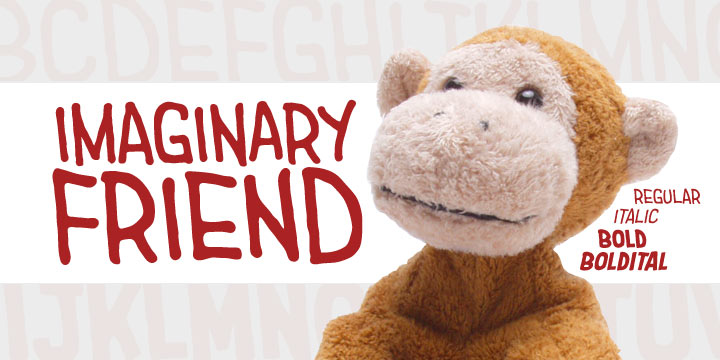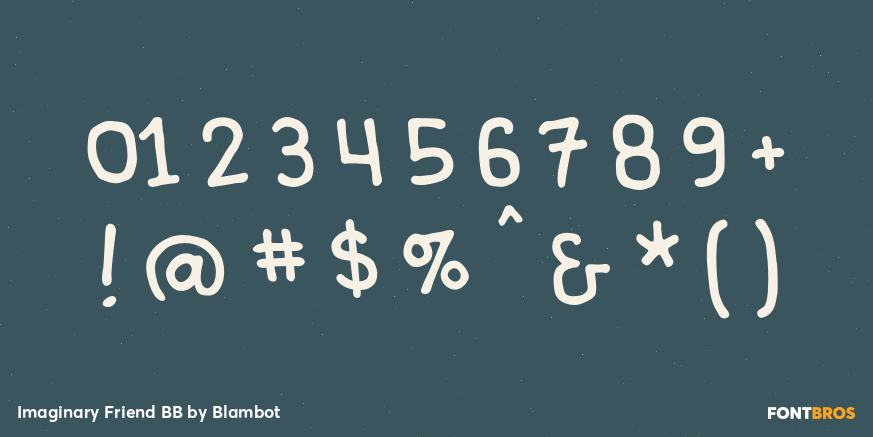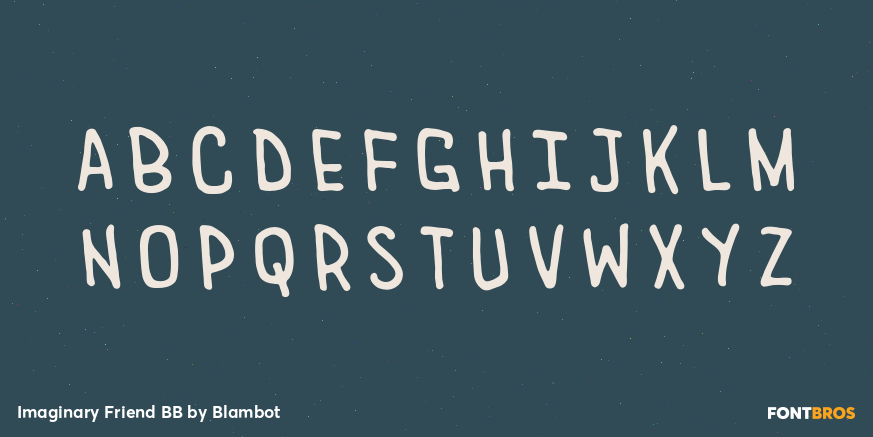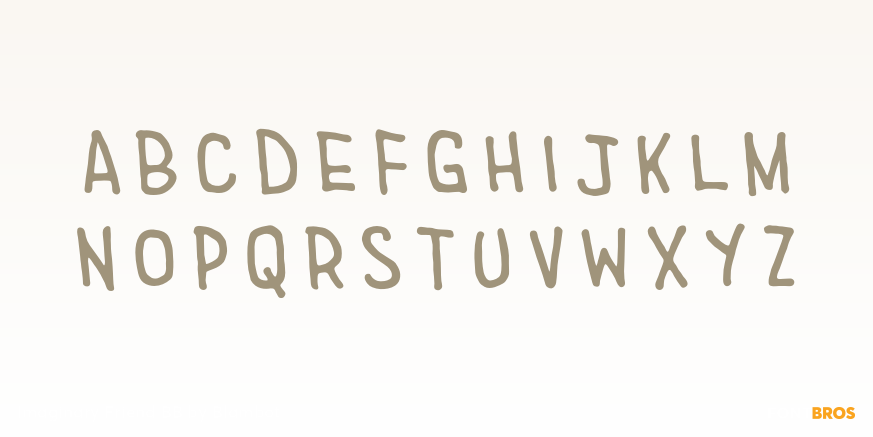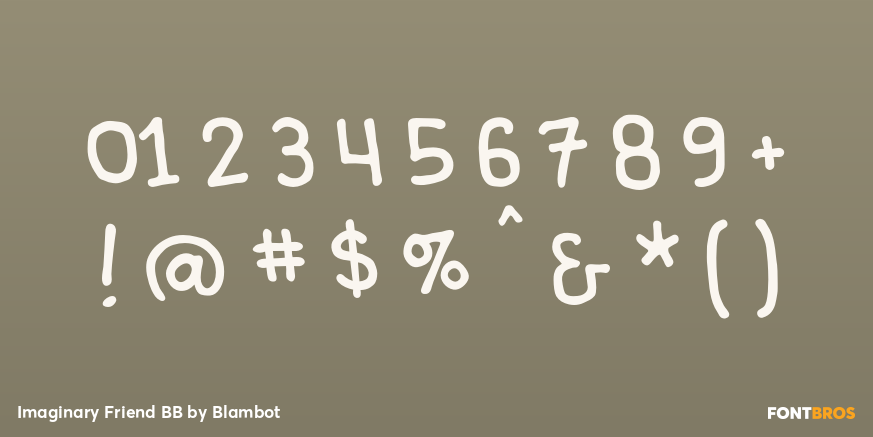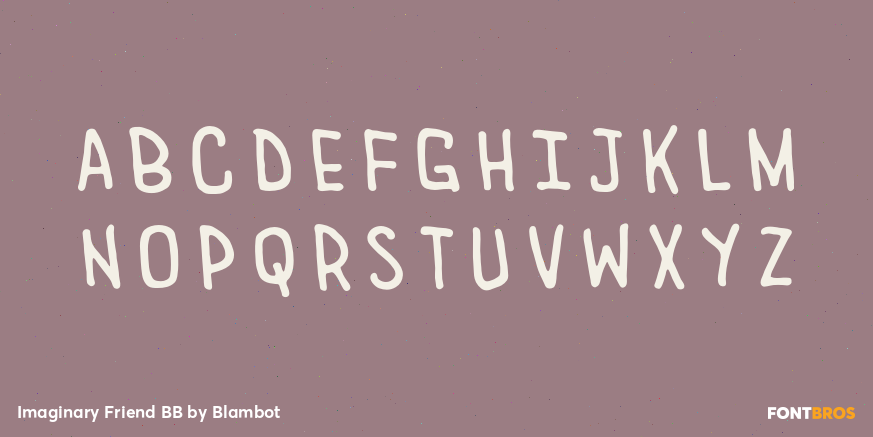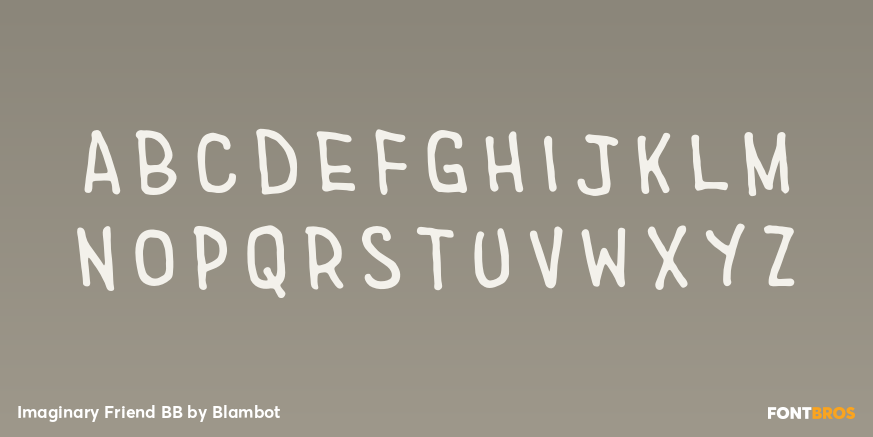
Imaginary Friend BB
Font Family by Blambot
IMAGINARY FRIEND BB is a whimsical comic book dialogue font inspired by newspaper funnies. The OpenType version has auto-ligatures to swap out duplicate letters for a more organic look. Includes Regular, Bold, Italic and BoldItalic.